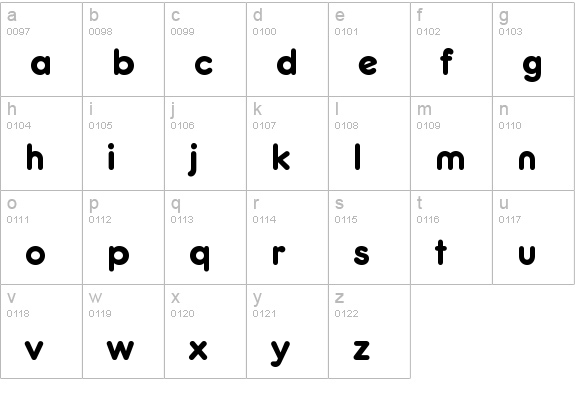
FrankfurterEF-Medium is a balanced, medium-weight variant in the FrankfurterEF typeface family \xE2\x80\x94 well suited to sub-headlines, navigation, and balanced editorial work.
FrankfurterEF-Medium is a classic and versatile font that combines elegance with readability. Its timeless design makes it suitable for various projects, from print materials to digital designs. The medium weight strikes the perfect balance between boldness and clarity, making it ideal for headlines, subheadings, and body text alike. What sets FrankfurterEF-Medium apart is that it is available for free download at FontsMarket.com. This means that you can easily access and use this high-quality font for your personal and commercial projects without any cost. Whether you are a designer, developer, or simply a typography enthusiast, FrankfurterEF-Medium is a valuable addition to your font library. With its clean lines and balanced proportions, FrankfurterEF-Medium offers a professional and polished look that will enhance the visual appeal of any design. Give your projects a touch of sophistication and style with this freely available font. Download FrankfurterEF-Medium today and elevate your typography game to the next level.